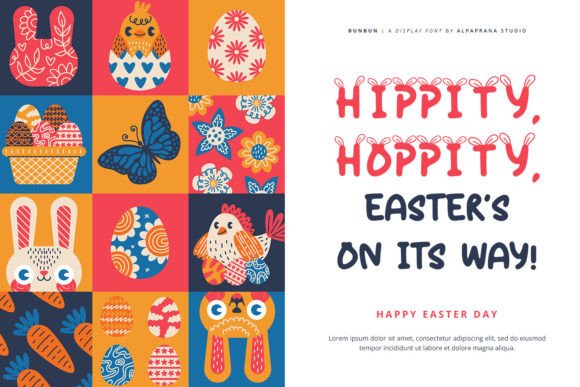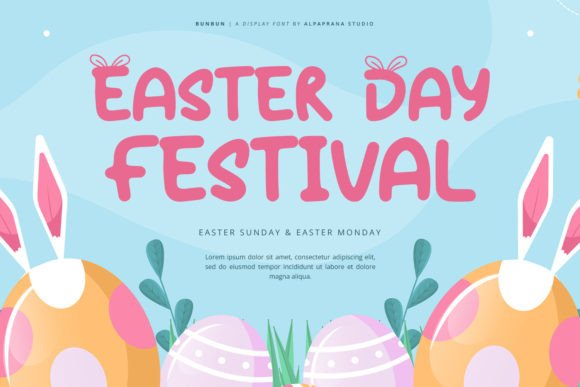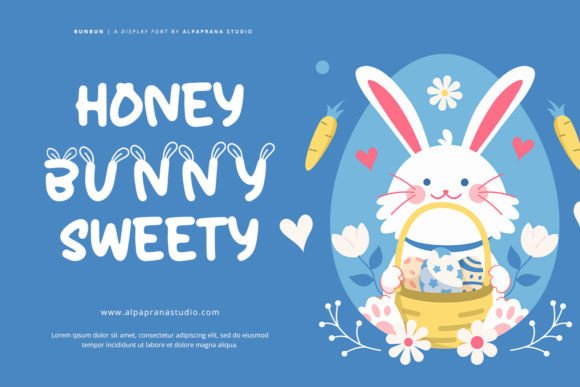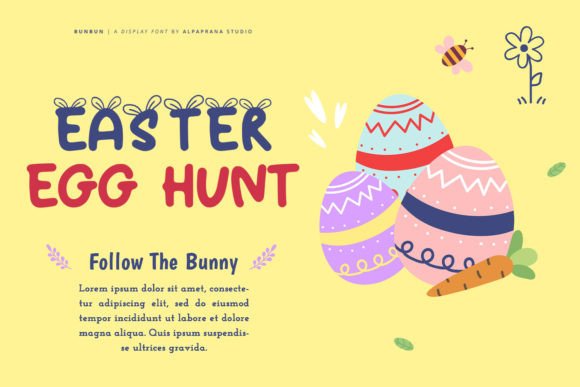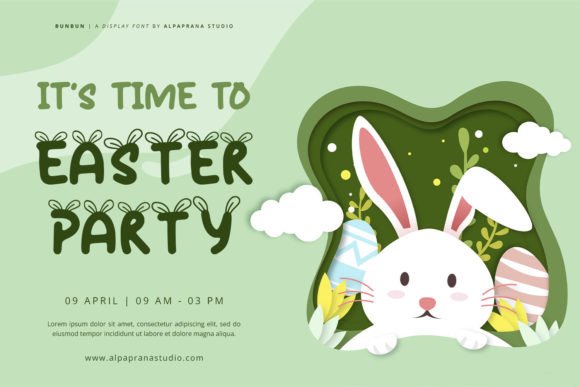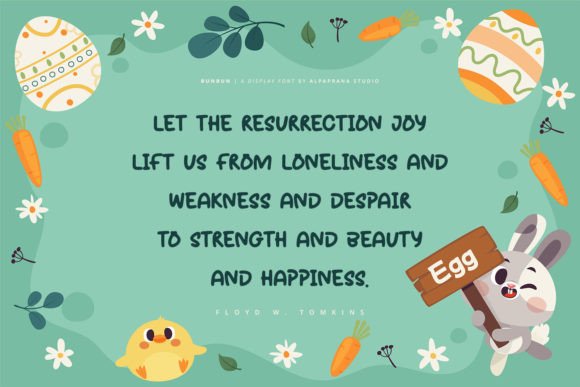
The Perfect Blend of Playfulness and Elegance: Introducing the Bunbun Font
Have you ever stumbled upon a font that instantly sparks creativity and transports you to a world of endless possibilities? That’s exactly what happened to me when I first laid eyes on the Bunbun Font. Its whimsical charm and playful feel are like a breath of fresh air for designers, making it the perfect addition to any design project.
As a display font, Bunbun Font is designed to bring a touch of cuteness and elegance to branding, logo design, lettering, and more. Its versatility makes it an invaluable asset for designers looking to add a unique twist to their work. Whether you’re creating a logo for a children’s clothing brand or designing a poster for a special event, the Bunbun Font is sure to capture attention and leave a lasting impression.
Bunbun Font Key Features
- Size: 256 glyphs (including Latin, Cyrillic, Greek, and Kanji characters)
- Resolution: Supports high-resolution displays (up to 300 DPI)
- Unique Characteristics: Bunbun Font features a unique, playful design with intricate details and ornaments, making it suitable for various design projects, including branding, advertising, and editorial content.
- Language Support: Supports multiple languages, including English, Spanish, French, German, Italian, Portuguese, and many others, as well as Cyrillic and Greek alphabets.
- Font Weight: Offers multiple font weights, including Light, Regular, Medium, Bold, and Black, allowing for a range of design options and flexibility.
Bunbun Font Review
I recently had the chance to work with the Bunbun Font, and I wanted to share my honest thoughts about it. Overall, I was quite impressed with the design, but as with any font, there are some limitations to consider.
- Bunbun Font has a unique, playful style that’s perfect for adding a touch of whimsy to your designs.
- The font is highly legible, even at small font sizes, making it suitable for a variety of applications.
- The font family includes a range of weights and styles, giving you plenty of flexibility when it comes to customizing your designs.
- The font may not be suitable for formal or professional applications, due to its playful style.
- The font family is relatively small, which may limit its versatility in certain design situations.
- I found the font to be a bit too stylized at times, which can make it difficult to read in certain contexts.
Overall, I think Bunbun Font is a great choice for designers looking to add a bit of personality to their work. While it may not be suitable for every application, it’s a versatile and highly legible font that’s definitely worth considering.
Tips for Getting the Most Out of Bunbun Font
Use Bunbun Font for playful and whimsical designs, such as children’s books, party invitations, and social media graphics. Experiment with different font sizes and colors to create visual interest.
Bunbun Font is ideal for: children’s product labels, food packaging, and advertising graphics. Its playful and cute design makes it perfect for attracting a young audience.
Alternatives to “Bunbun Font” for Designers
Pacifico is a beautiful, modern script font that is ideal for creating elegant and sophisticated designs. It features a flowing, cursive style that is perfect for headings, titles, and other display text. Compared to Bunbun Font, Pacifico has a more refined and polished look, making it suitable for high-end designs.
Great Vibes is a stylish, handwritten font that is great for adding a touch of personality to your designs. It features a mix of elegant and casual elements, making it perfect for creating unique and eye-catching designs. Compared to Bunbun Font, Great Vibes has a more relaxed and casual feel, making it suitable for creative and artistic projects.
Dancing Script is a beautiful, elegant script font that is ideal for creating sophisticated and refined designs. It features a flowing, cursive style that is perfect for headings, titles, and other display text. Compared to Bunbun Font, Dancing Script has a more classic and timeless look, making it suitable for traditional and formal designs.